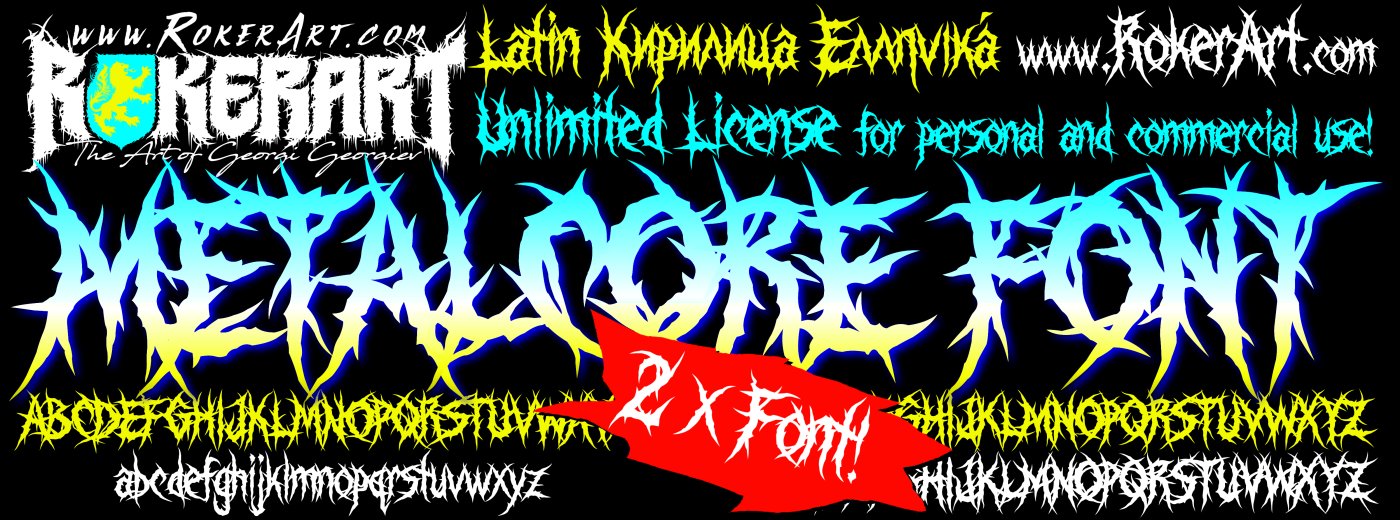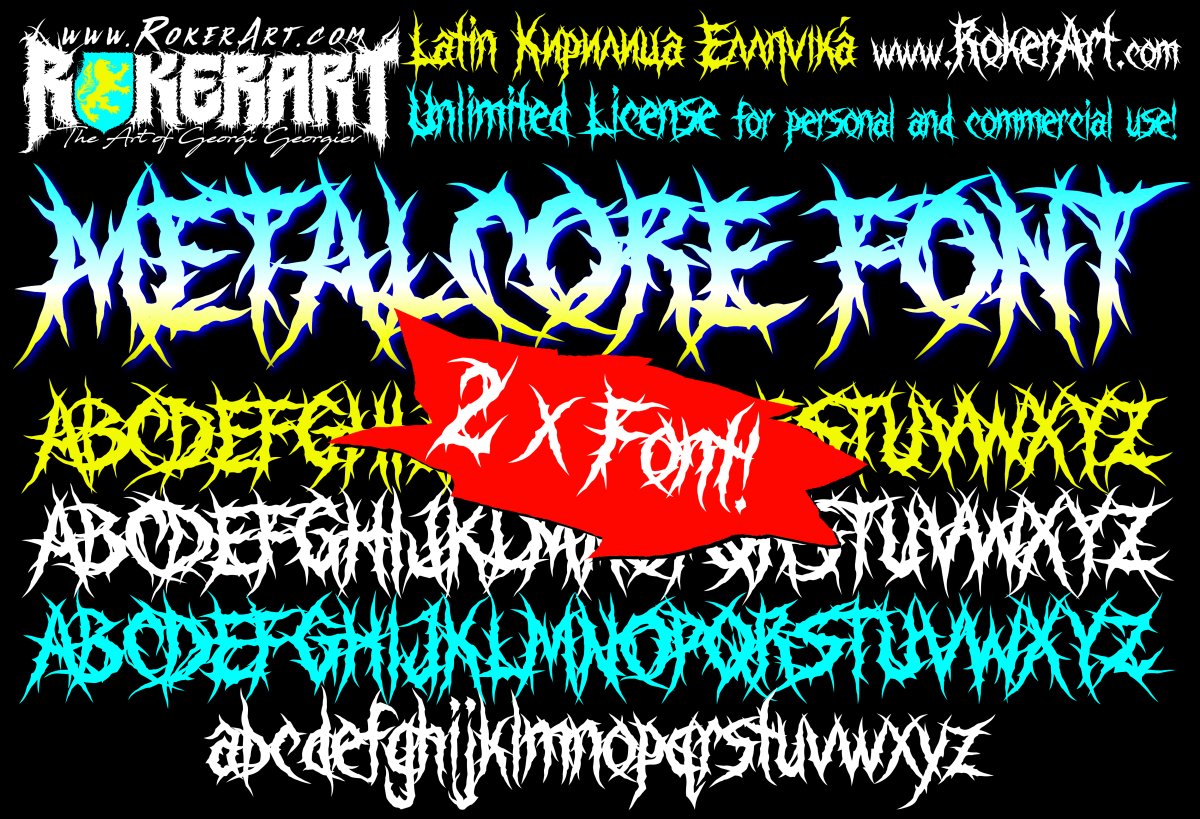
Metalcore Font – Metalcore, Death Metal, Extreme Metal styled typeface
RokerArt presents: Metalcore Font – Metalcore, Death Metal, Extreme Metal styled typeface!
Here is a double font in the style of metalcore, deathcore, and death metal!
It offers you so many possibilities for creating your professional logo, inscription, text, and much more!
Which means that here you have two fonts!
One is made up of only uppercase letters, and the other contains both uppercase and lowercase letters.
This will give you practically everything you need to have a complete design and a vision that makes an impact!
The font has an organic and detailed look and yet is optimized and lightweight.
It can serve well for both merchandise projects and printed materials, as well as for your online and video content!
Quite chaotic and aggressive but still legible!
The font contains all the necessary letters, numbers, and symbols from extended Latin, Greek, and Cyrillic.